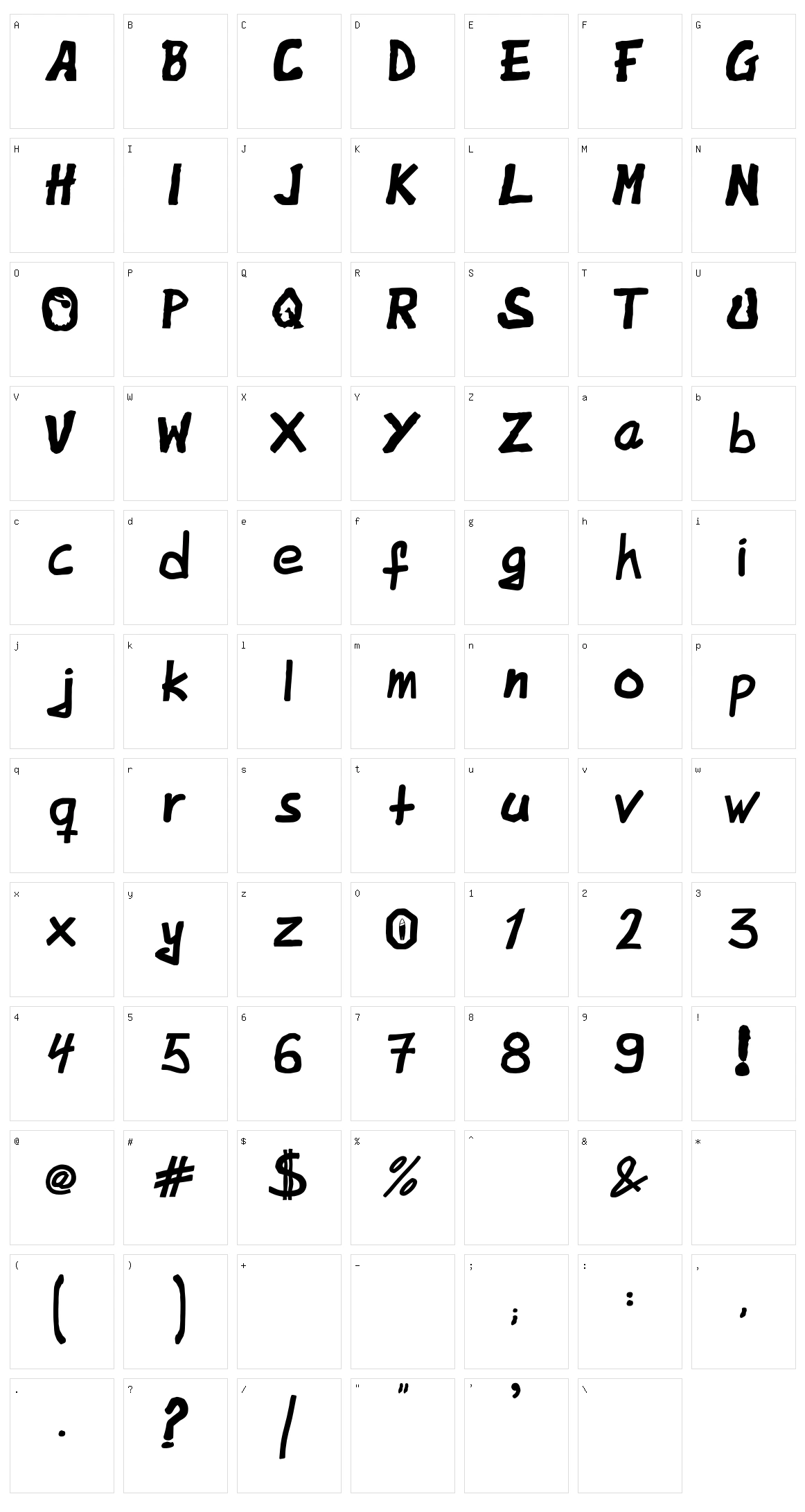
The free font OodiJackO is carefully designed by Tero Viitamäki, showcasing a thoughtful balance of creativity and usability and falls under the Cartoon font style. When you download the ZIP file, it contains only 23.74 KB of font files, making it lightweight and quick to download. Please review the license details below to understand permitted usage and distribution rights. If license information is not available, we recommend using this font for personal projects only or contacting the author directly for commercial usage permissions.